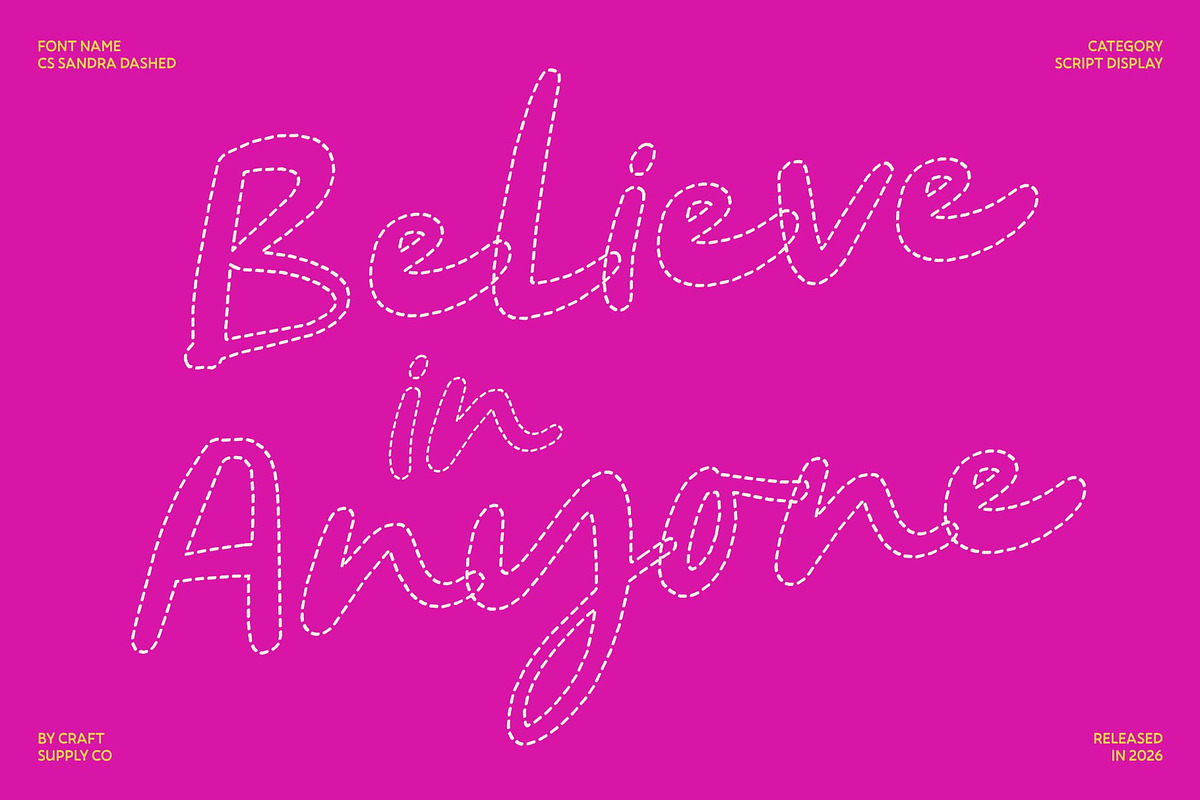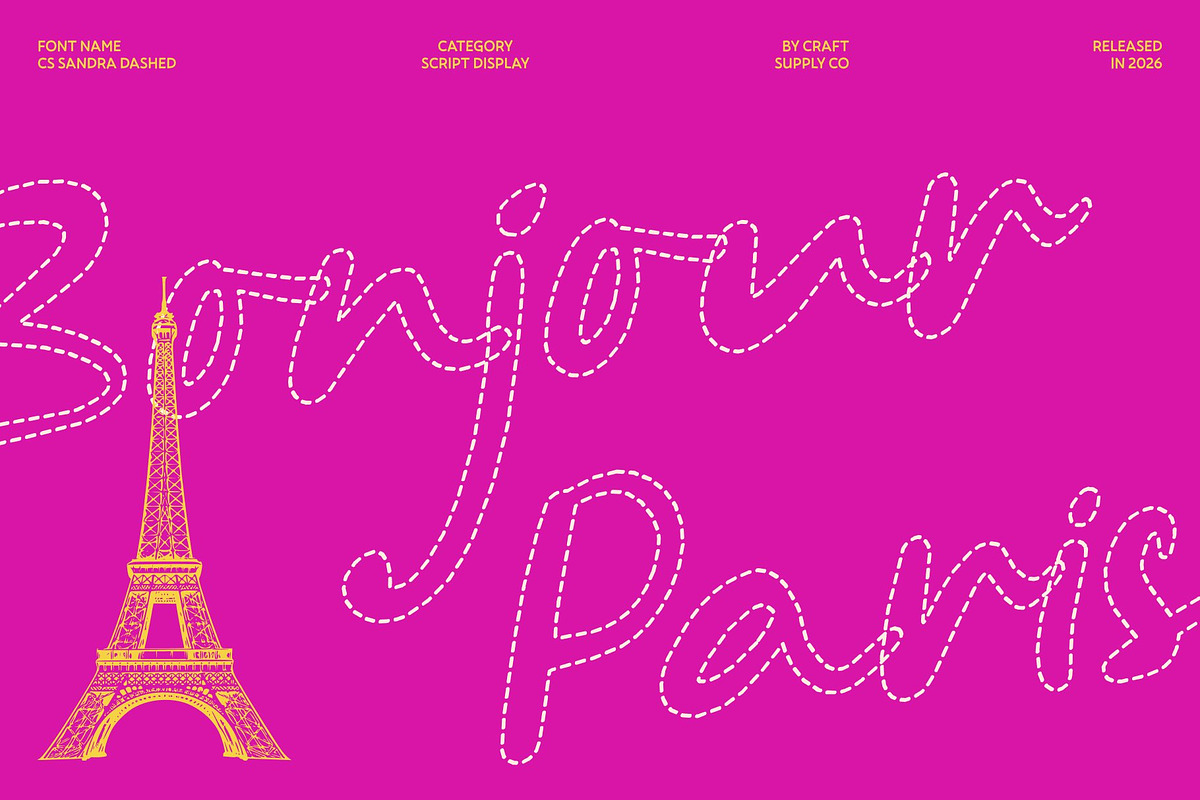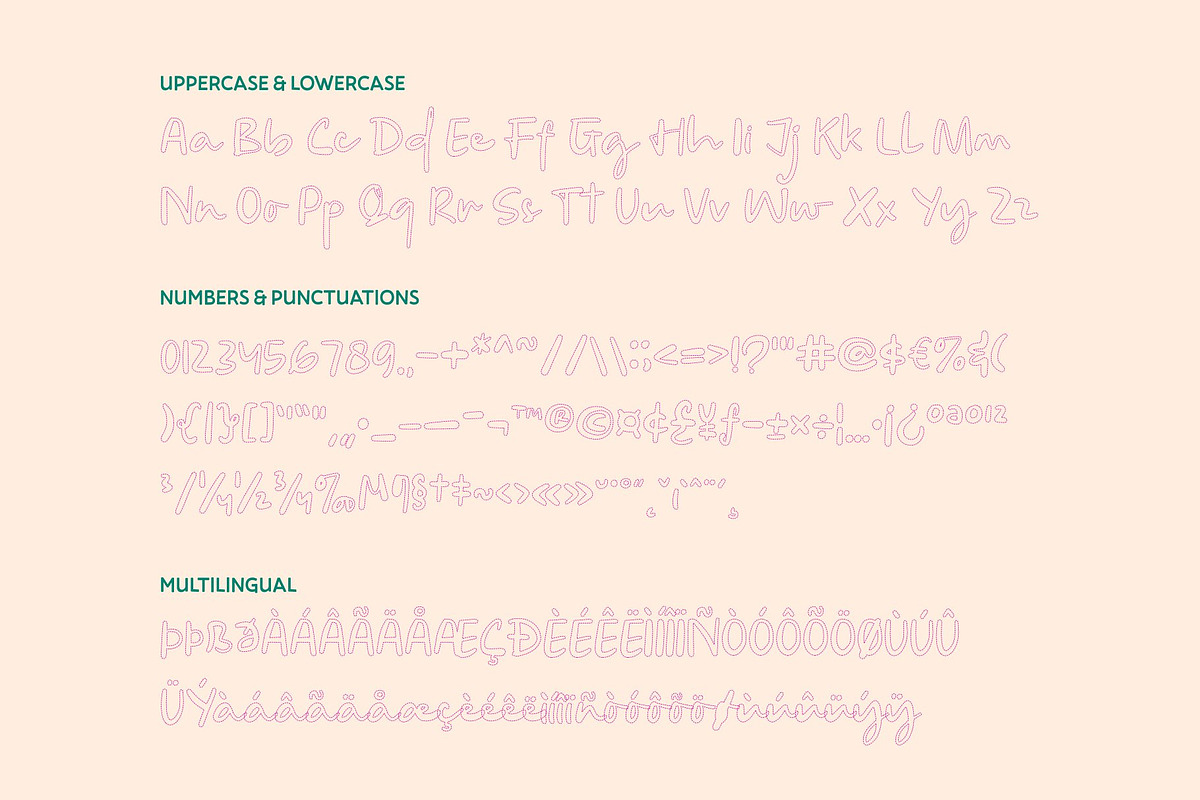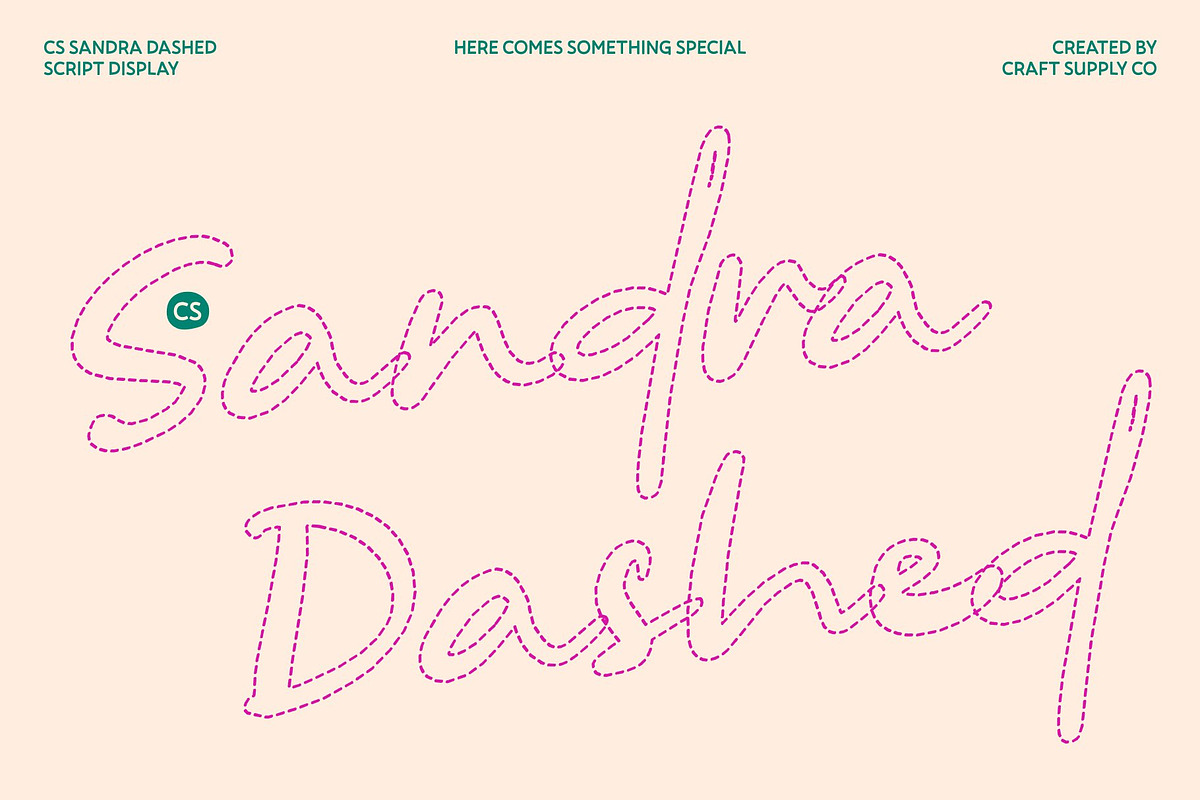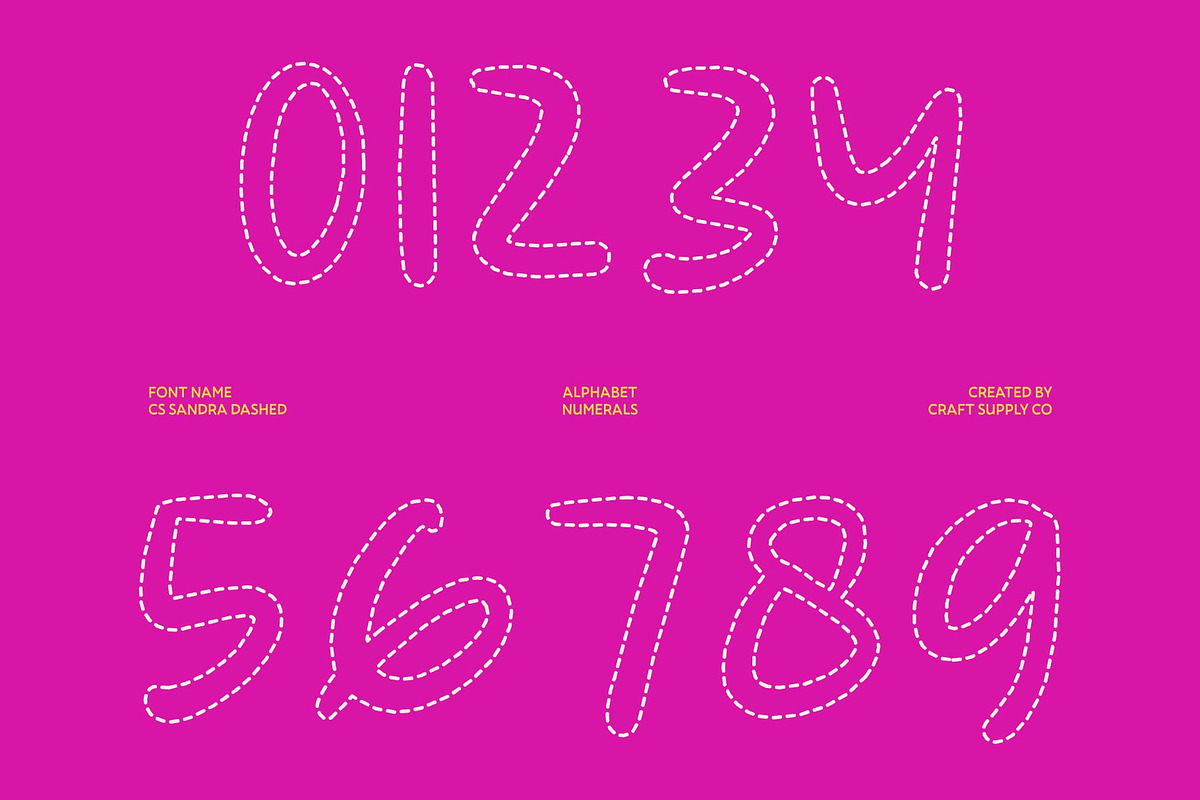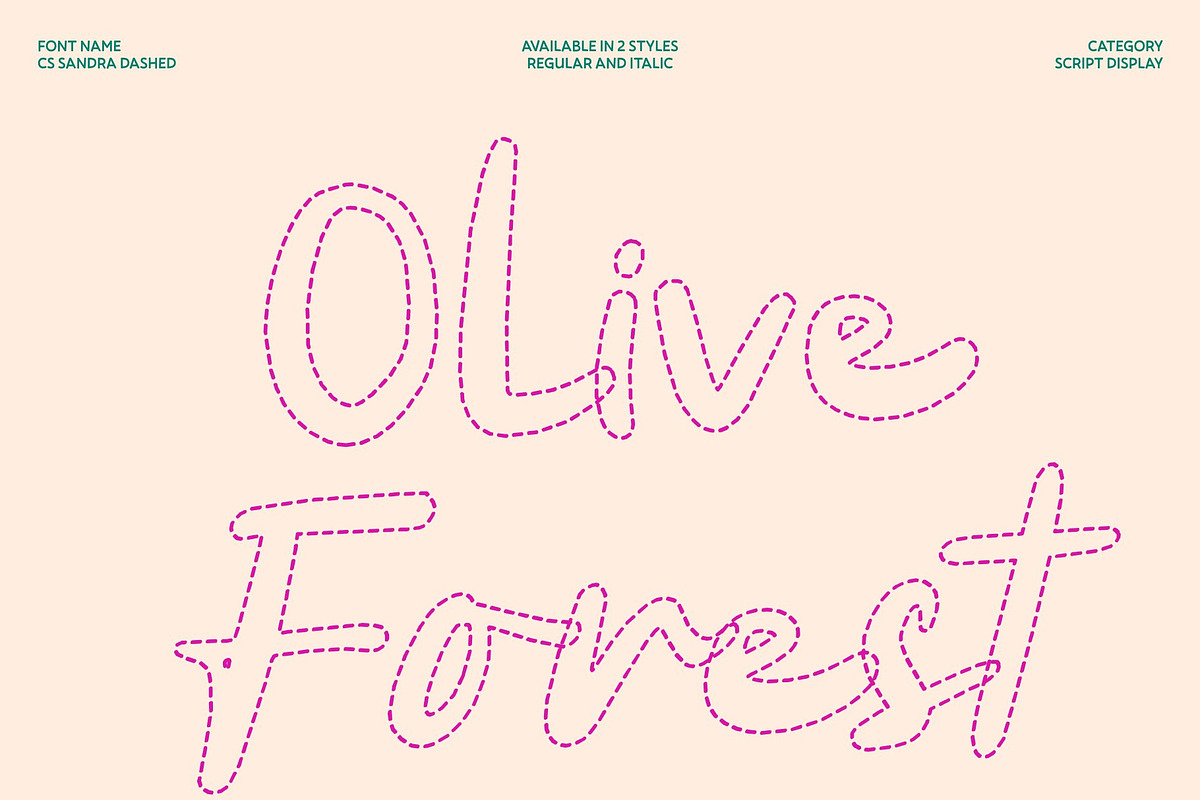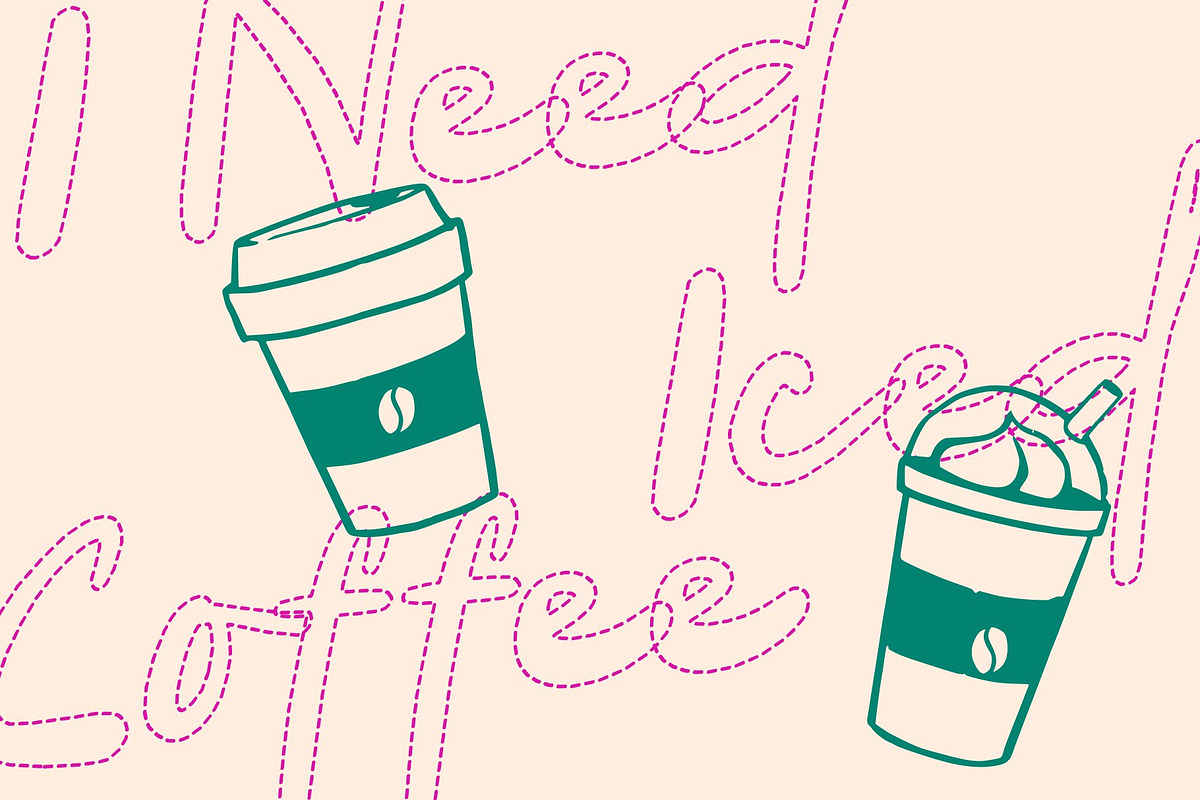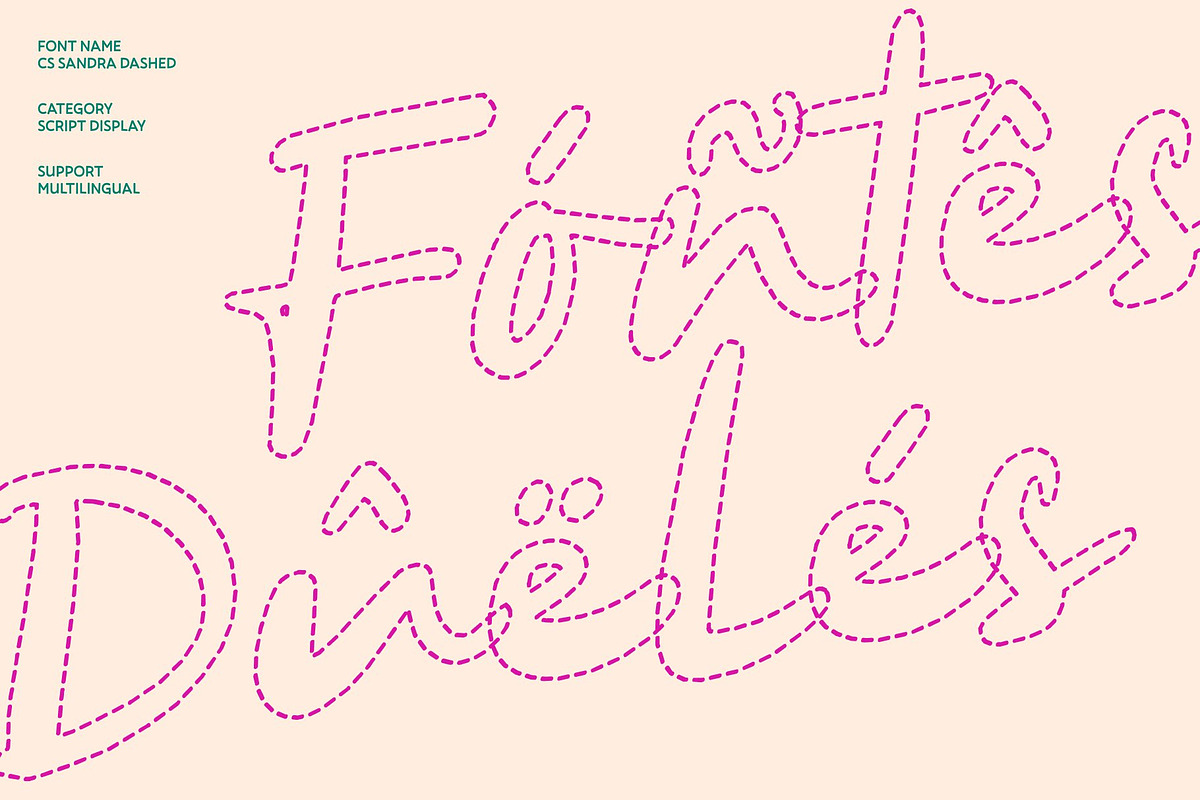
CS Sandra Dashed
CS Sandra Dashed – Relaxed Summer Vibes with Natural Handwritten Warmth
Summer Script Font with Easygoing Character This is a relaxed summer script font designed to radiate warmth, comfort, and effortless charm. Inspired by natural handwriting and laid-back summer moments, its flowing strokes are enhanced with a dashed texture that gives the lettering a light, breezy personality. The result is a friendly and inviting script that feels cheerful, carefree, and full of sunshine.
Natural Handwriting with Warm Expression Organic strokes and soft connections closely resemble real handwriting, while subtle variations in line weight add authenticity and character. The dashed detailing introduces a playful, creative touch that reinforces the font’s relaxed and approachable feel, helping designs feel personal and genuine.
Relaxed Style for Lifestyle Storytelling This font shines in expressive, lifestyle-driven compositions. Its summer-inspired rhythm creates an easygoing mood that makes messages feel cheerful and comfortable. Whether used for short quotes or bold headlines, it maintains clarity while delivering a playful, relaxed aesthetic.
Perfect for Posters, Branding, and Invitations This font is ideal for posters, branding, quotes, invitations, lifestyle products, and social media graphics. It’s especially well suited for summer campaigns, cafés, travel themes, handmade products, and creative brands that want to communicate warmth, joy, and a sunny, carefree vibe.
CS Sandra Dashed Regular
CS Sandra Dashed Italic